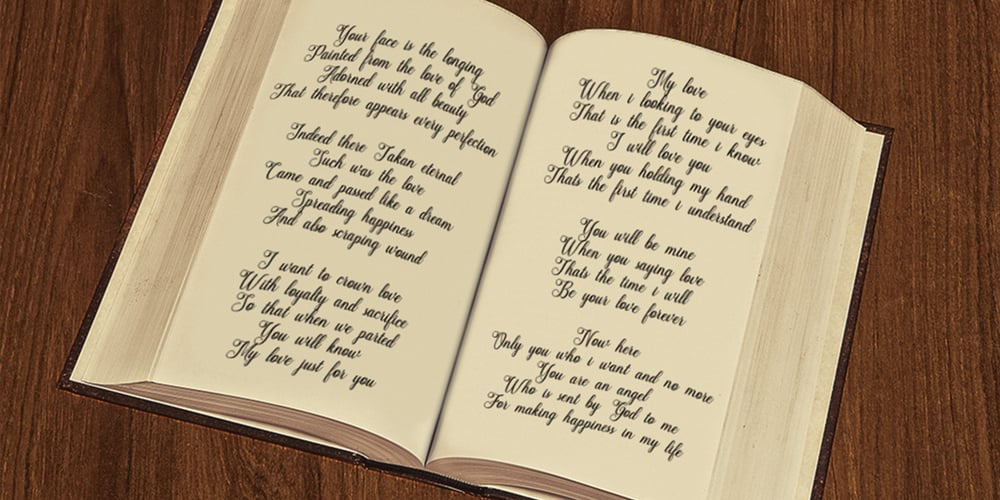
Nakeisha Font Family was designed by Marwah and published by BBA Key. Nakeisha contains 2 styles and family package options. Nakeisha New fresh & modern style with handmade calligraphy, decorative characters and dancing lineage! So wonderful are invitations like greeting cards, branding material, business cards, quotes, posters, and more !!